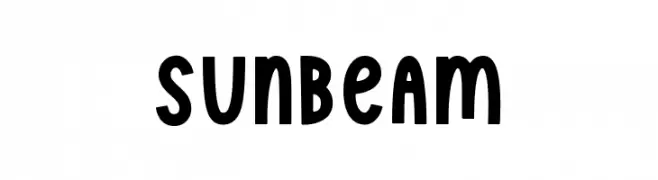
A playful, bold, and hand-drawn style font with thick strokes and rounded edges.
Fredella Font
Font by Nirmala Creative - Personal-use only. For commercial use please contact owner.
A bold serif font with high contrast and elegant serifs, perfect for impactful designs.
Monkey Boots Font
Font by Nirmala Creative
A playful, handwritten font with bold, dynamic characters.
Kalista Missy Font
Font by Nirmala Creative
A playful and whimsical font with bold, curvy letterforms and dynamic strokes.
Princess Angela Font
Font by Nirmala Creative
A playful, handwritten font with dynamic strokes and whimsical curves.
Laurels Font
Font by Nirmala Creative
A playful, bold font with rounded, thick strokes and a whimsical style.
Neyra Font
Font by Nirmala Creative
A playful, bold font with rounded edges and a whimsical style.
Presley Font
Font by Nirmala Creative - Personal-use only. For commercial use please contact owner.
Playful handwritten font with rounded edges.
Warm Sunset Font
Font by Nirmala Creative